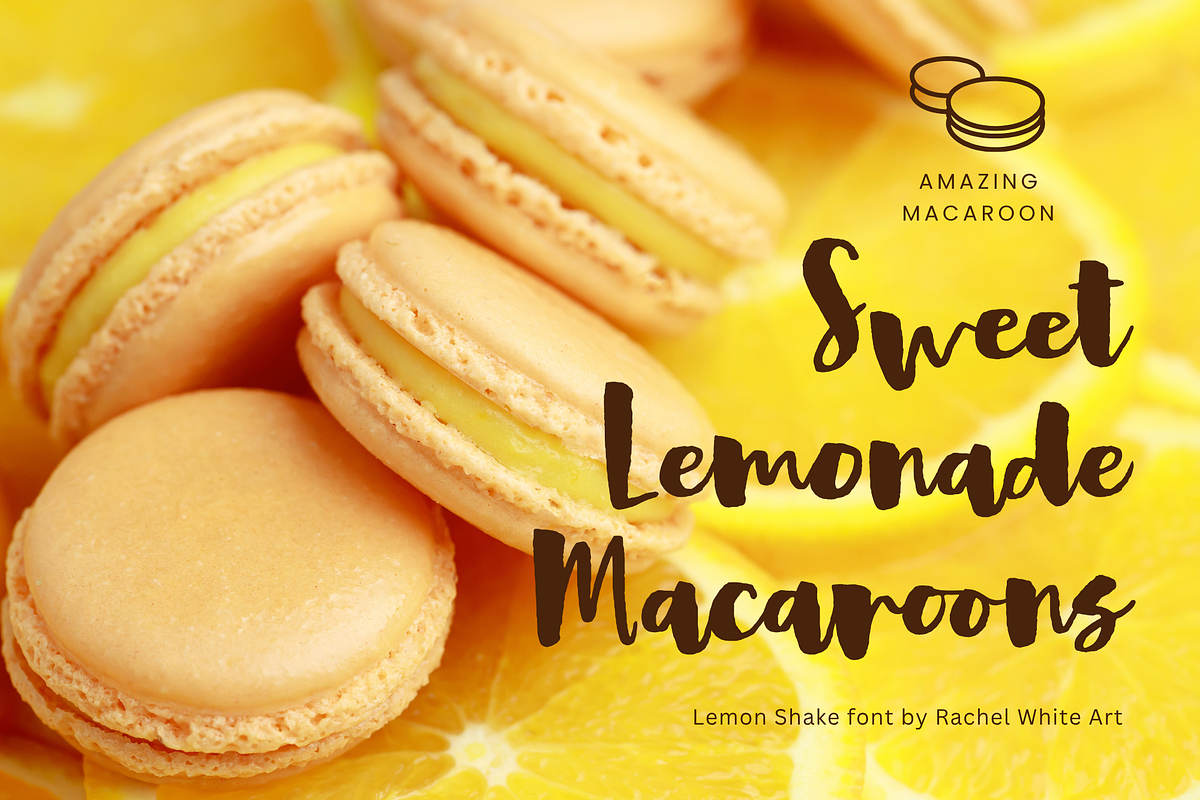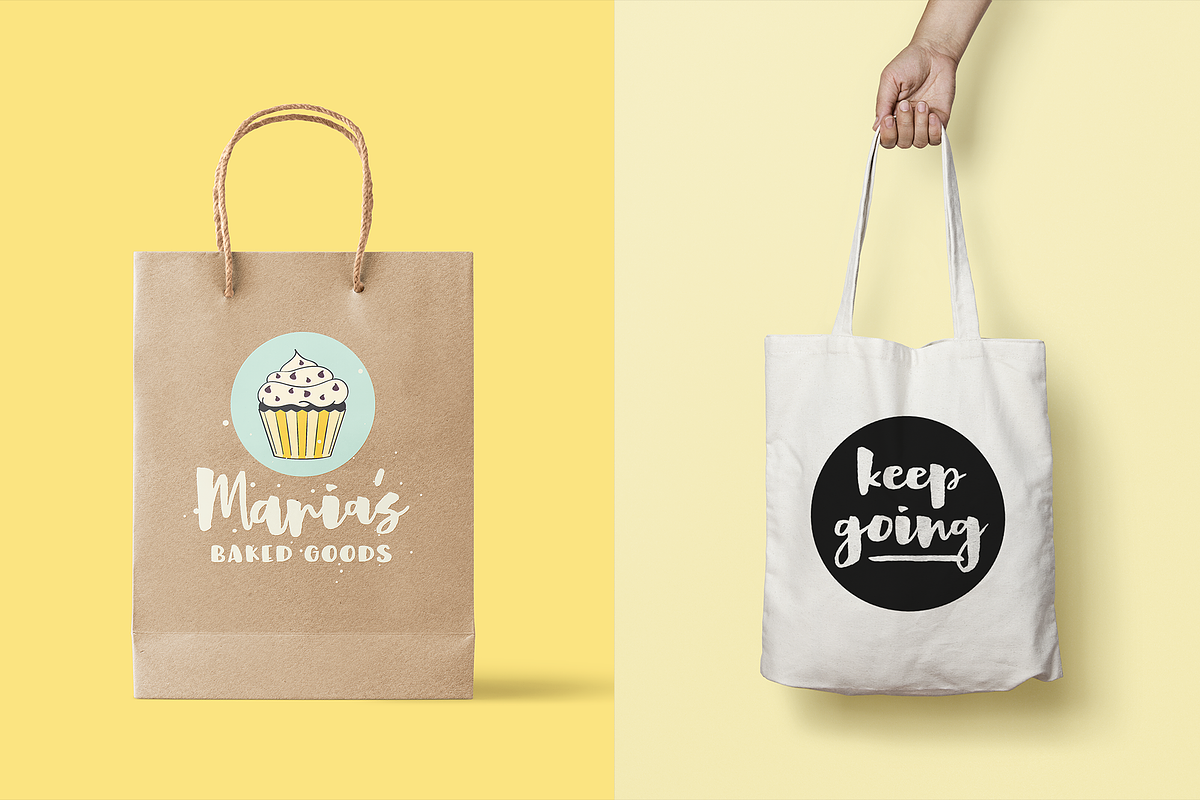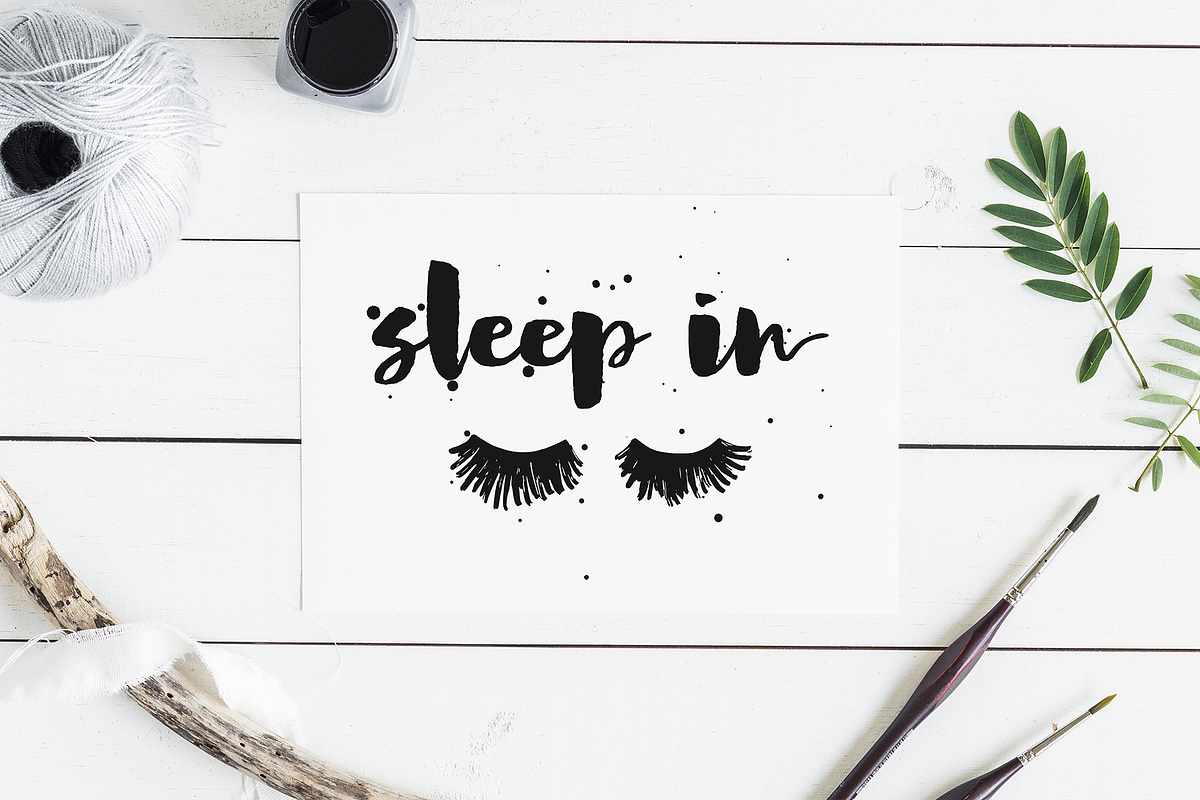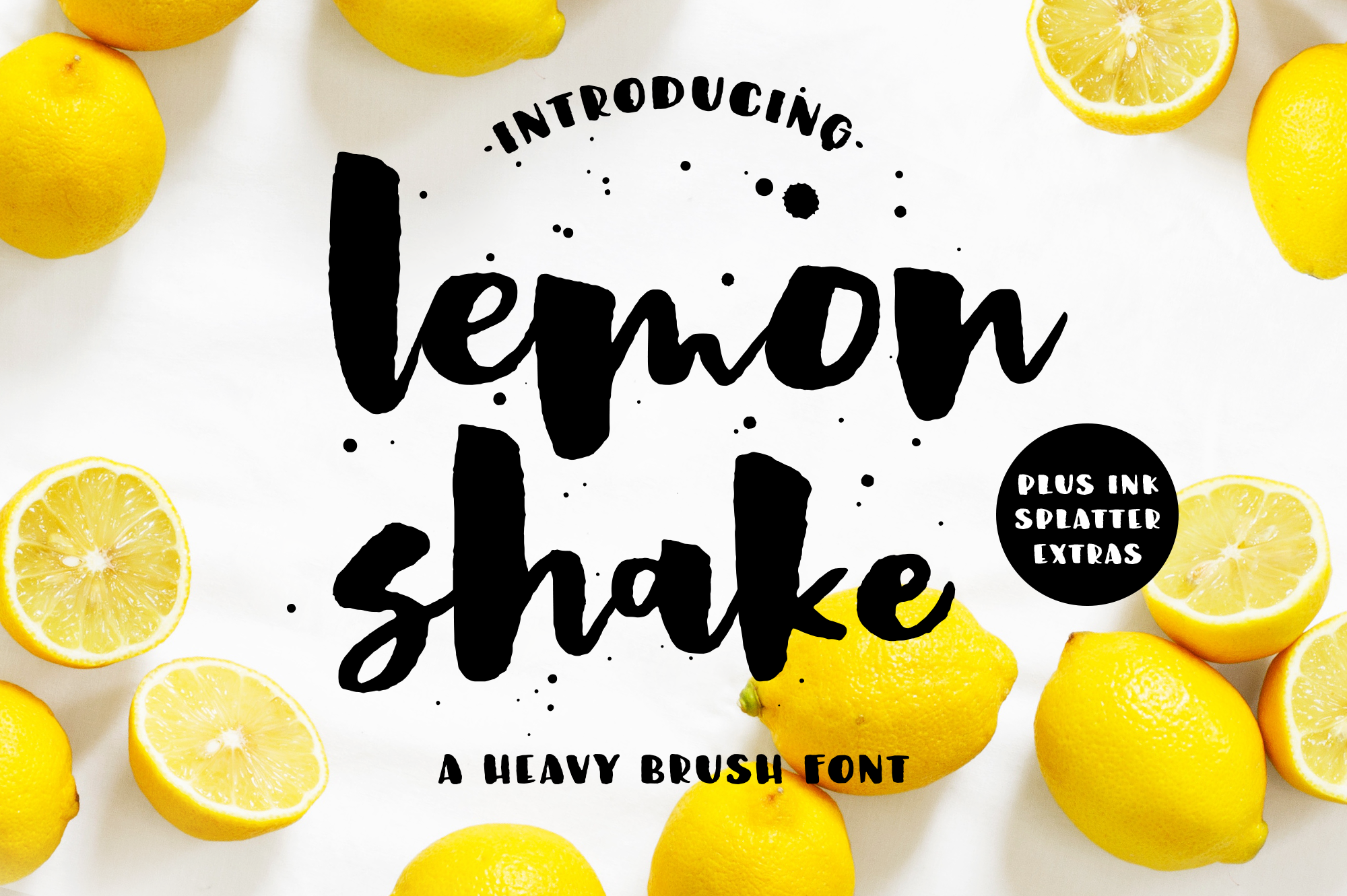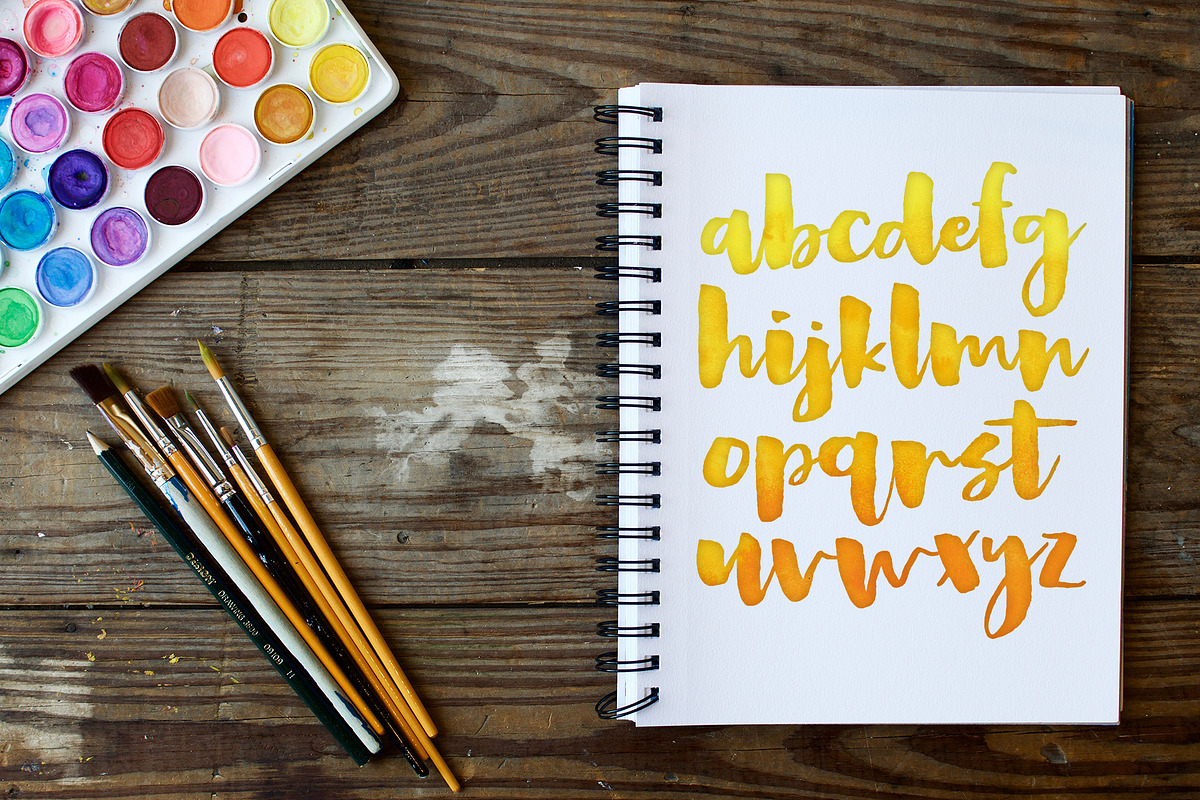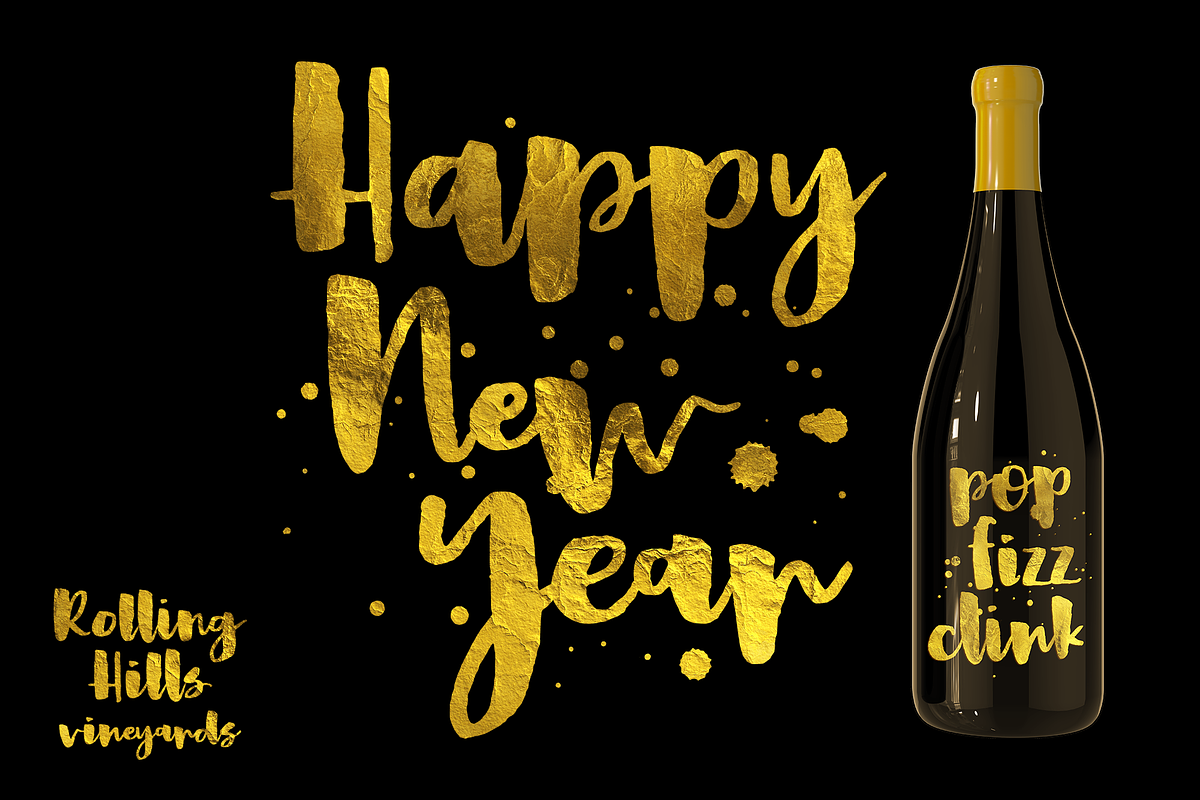
Lemon Shake, a heavy brush font
Lemon Shake is a chunky brush script font with bold strokes, bouncy movement, and tons of personality. Hand-painted with energy, it’s great for logos, headlines, posters, merch, and designs that need a fun, expressive vibe.
This font is packed with character—perfect for projects that want to feel handmade, creative, and full of life. Whether you’re designing a t-shirt, product label, or social media graphic, Lemon Shake brings the flavor.
- lowercase alternates
- some double letter ligatures
- Toast: a painted san serif capital font to pair with Lemon Shake for perfectly matched designs.